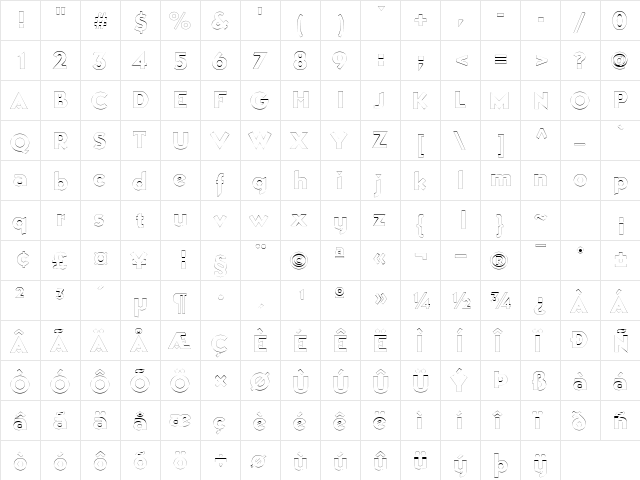
ManhattanOutline Regular
Design Context for ManhattanOutline Typeface
ManhattanOutline brings ornamental detail and strong personality to headlines and identities, where visual impact matters more than quiet functionality.
Font Pairing: Pair with a clean neutral sans-serif for body copy to let ManhattanOutline's character lead without overwhelming the composition.
Pro Tip: Treat ManhattanOutline as the centrepiece of your typographic hierarchy. One strong heading set in a decorative face can carry an entire layout.